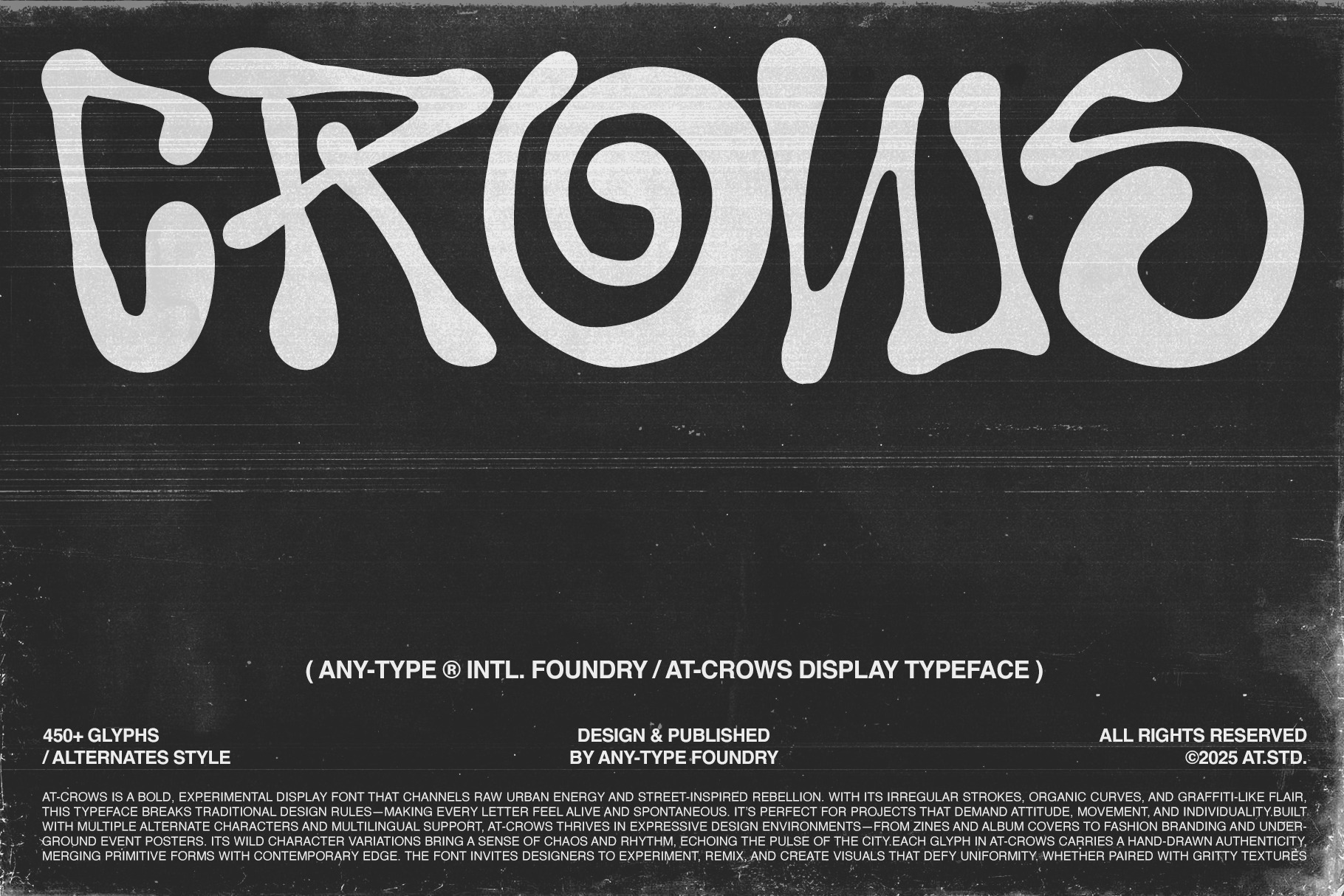
Crows: Urban Energy in Typeface Form
Crows is a daring display font that channels the essence of raw urban energy and street-inspired rebellion. With its irregular strokes, organic curves, and graffiti-infused style, this typeface defies conventional design norms, making each letter appear vibrant, expressive, and uniquely unpredictable.
Designed for those who embrace boldness, Crows thrives in projects demanding attitude, rhythm, and movement—from zines, album covers, and event posters to fashion branding and striking editorial layouts.
Featuring over 450 glyphs and multiple alternates, this font offers limitless avenues for creativity, allowing you to construct visuals that stand out. Each character embodies a hand-drawn authenticity, blending primitive forms with a contemporary edge—a testament to the dynamic pulse of modern cities.
Ideal For:
- Underground and streetwear branding
- Music and festival posters
- Bold editorial headlines
- Zines, album covers, and art projects
- Experimental digital artwork